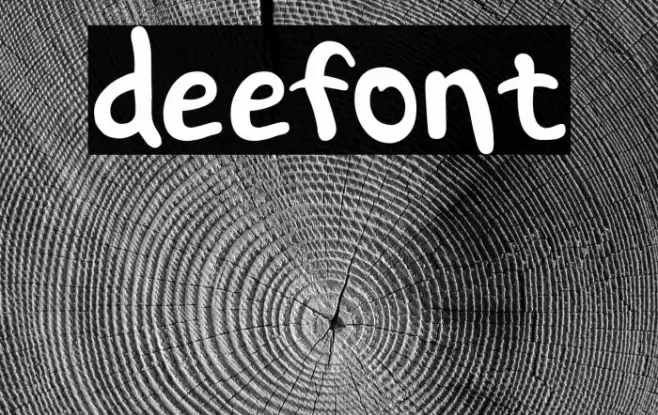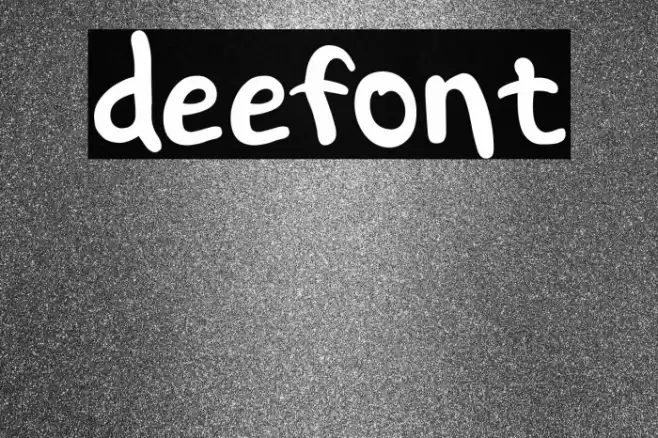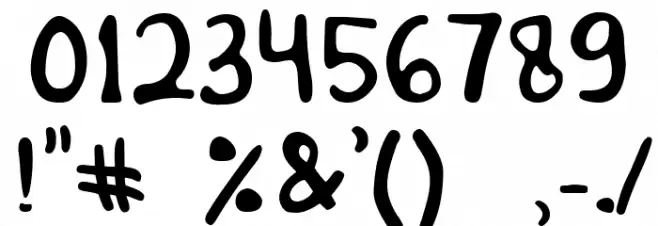
deefont Font
deefont Description
This playful and bold font features a handwritten style with rounded edges and a casual, friendly appearance. The letters are slightly irregular, adding a whimsical touch that makes it stand out. The uppercase and lowercase characters maintain a consistent style, with a slight tilt that enhances its informal look. The numbers and special characters follow the same playful design, making it versatile for various creative projects. Its thick strokes and rounded forms give it a warm and inviting feel, perfect for designs that aim to be approachable and fun.
A playful, handwritten font with rounded edges and a casual style from Comic fonts.
- Proposed Projects: Ideal for children's books, playful branding, greeting cards, and casual invitations.
- Overall Style: Playful
- Use Case: Headlines, Logos, Informal Text